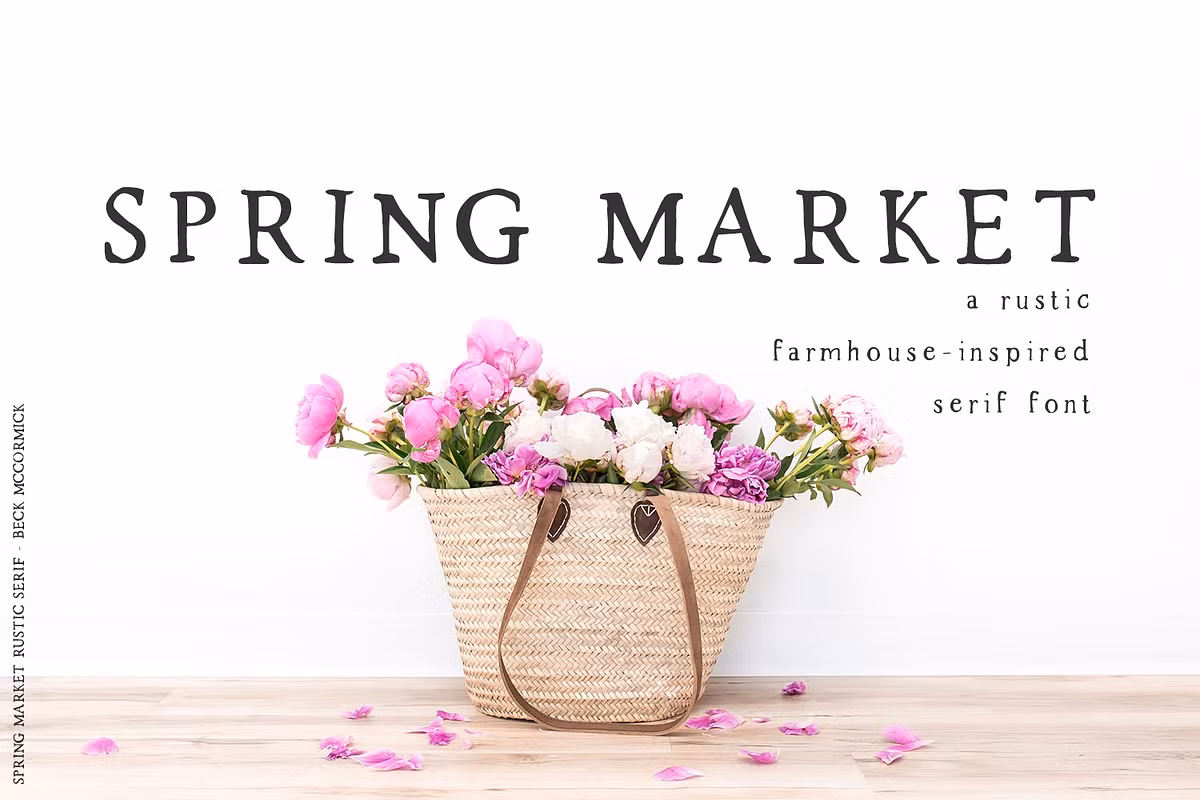
Spring Market - Rustic Font Free Download
Spring Market – Rustic Font Free Download
Spring Market – Rustic Font Free Download is a charming handwritten typeface with a cozy, farmhouse-inspired feel. Featuring slightly textured strokes, organic curves, and a casual yet tidy style, this font is perfect for rustic branding, farmhouse signs, home decor prints, product packaging, and seasonal designs—especially for spring and farmers' market themes.
Designed to evoke warmth and handcrafted simplicity, Spring Market – Rustic Font Free Download adds a personal and welcoming touch to any project. Whether you're creating DIY printables or branding for handmade goods, it brings just the right amount of charm and authenticity.